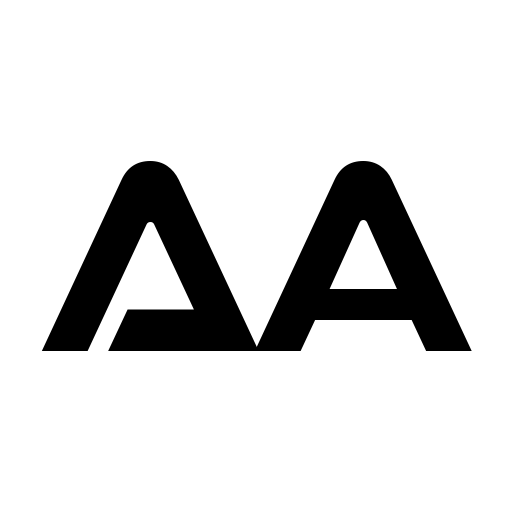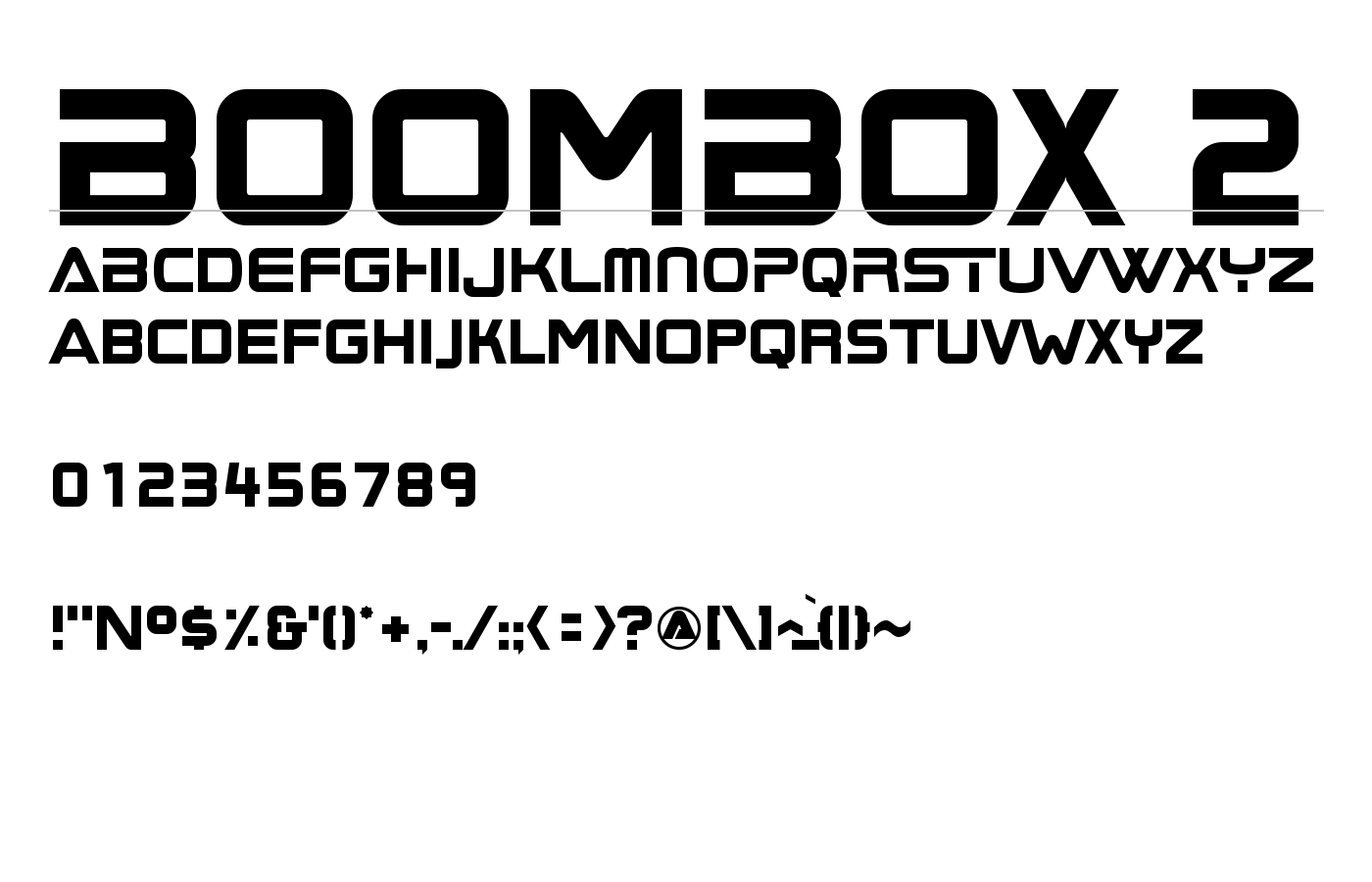
BoomBox 2 is a bold, geometric sans-serif font with a futuristic and tech-inspired vibe. Its strong, blocky letterforms with sharp angles and uniform stroke widths make it ideal for impactful headlines, logos, and branding that require a modern, edgy look. This font works well in digital and print projects aimed at conveying energy, innovation, and a cutting-edge style.
BoomBox 2 Font